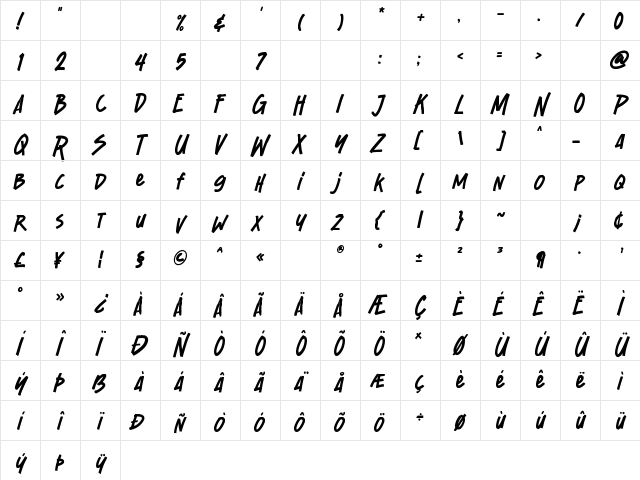
BadBrush Regular Free Font
BadBrush Regular
Foundry: Gassstype￿ Studio
Designer: Anang F & Malik Wsn | Gassstype￿ Studio 2021
Design Context for BadBrush
BadBrush flows with the natural rhythm of handwritten lettering, making it ideal for designs that call for warmth and personal expression.
Font Pairing: Combine BadBrush with a simple geometric sans for maximum contrast - the tension between flowing curves and clean structure is a classic typographic pairing.
Pro Tip: Use BadBrush for short runs of text - names, titles, or taglines. Extended body copy in script faces tires the eye quickly.